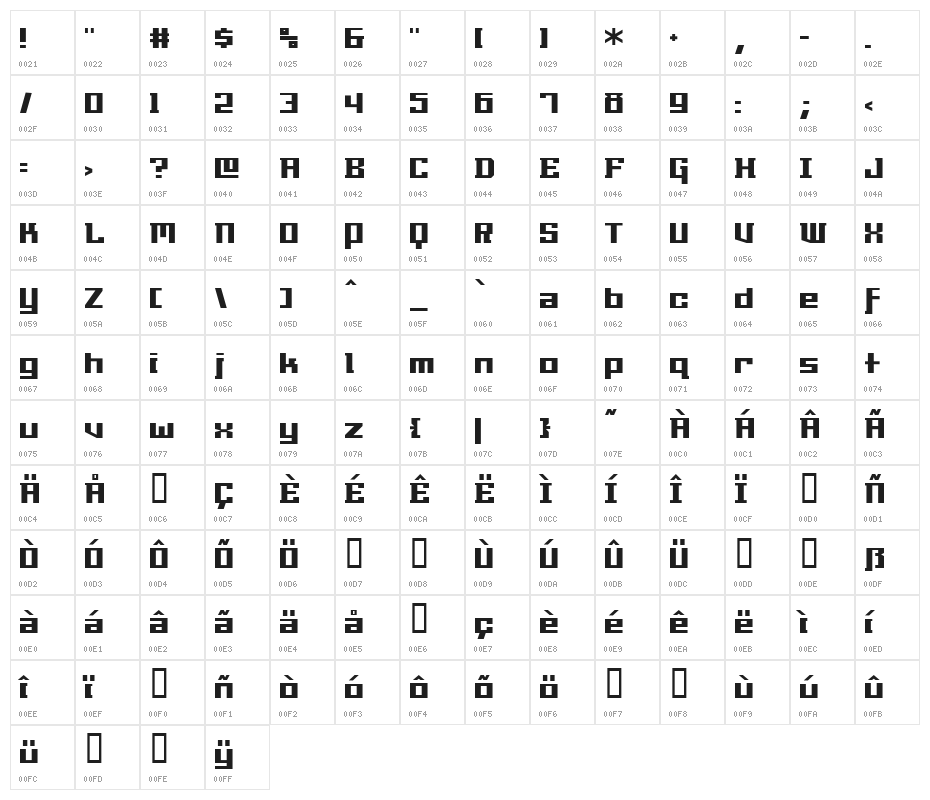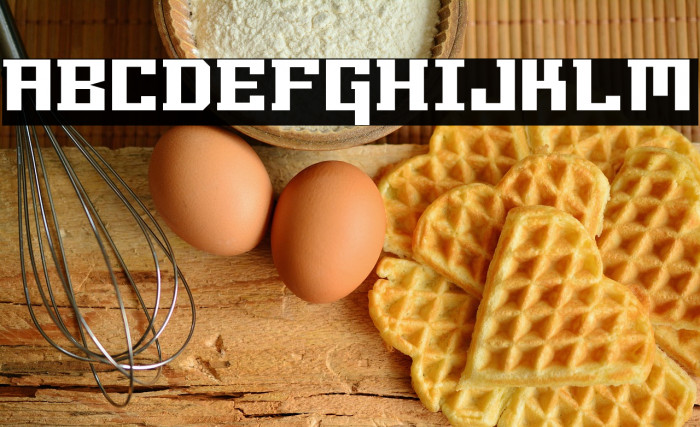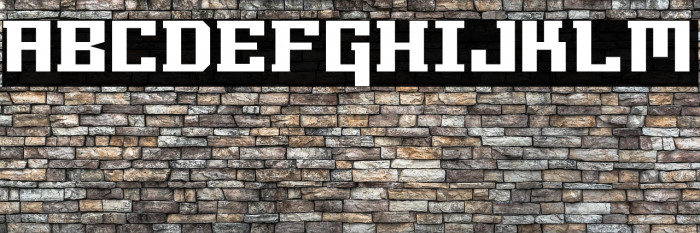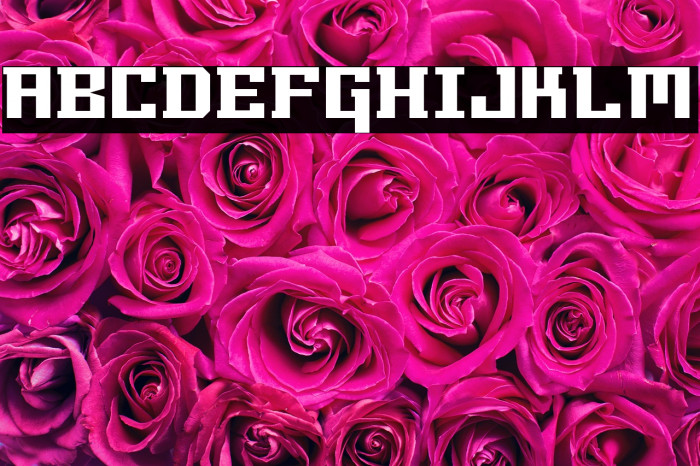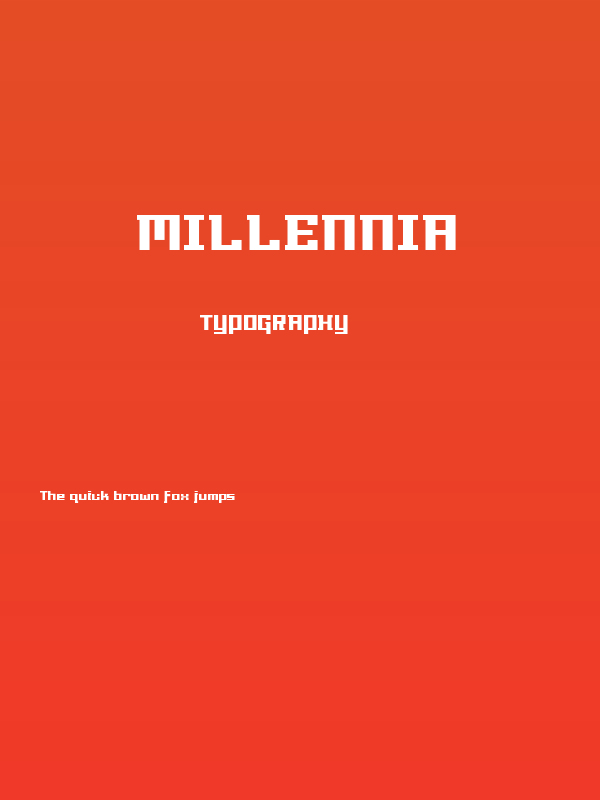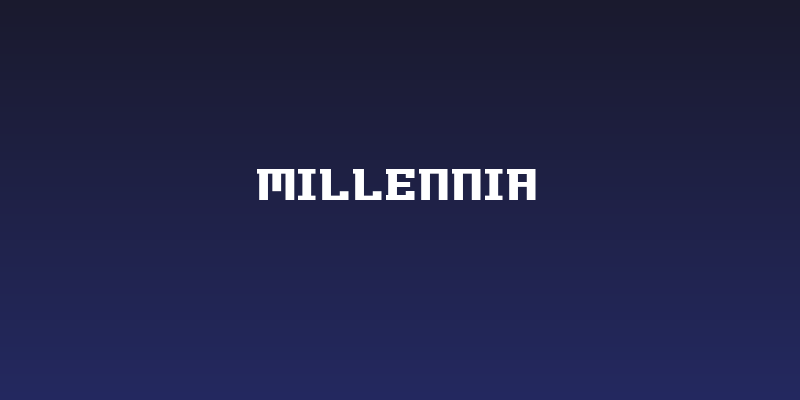
Millennia Font
Millennia Description
This font features a bold, geometric design with a distinctly modern and digital aesthetic. The characters are constructed with sharp, angular lines and consistent stroke widths, giving it a blocky, pixelated appearance reminiscent of early digital typefaces. The uppercase and lowercase letters maintain a uniform height, contributing to a cohesive and structured look. The numerals and special characters follow the same design principles, ensuring visual harmony across all elements. This font's strong, impactful style makes it ideal for projects that require a futuristic or tech-inspired feel.
Proposed ProjectsIdeal for tech-themed designs, video game graphics, digital art, and futuristic branding.